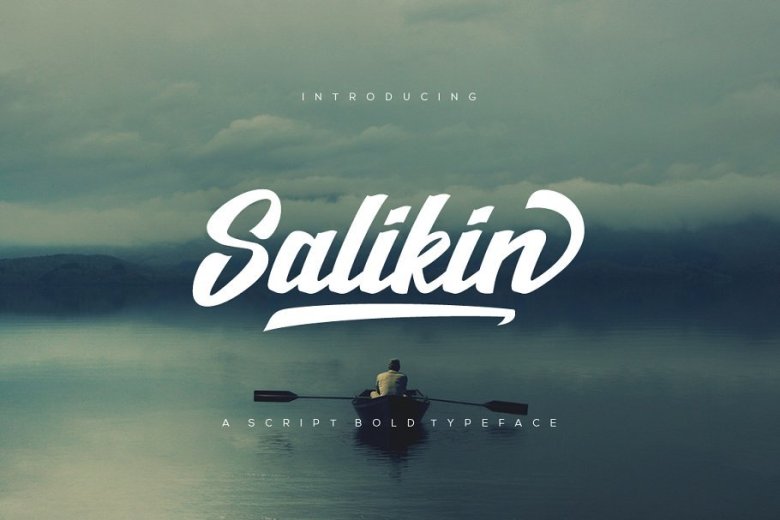
Salikin Bold Script Font
This is a beautiful script with a new lovely stylish, it is bold and brush style. If you are looking for such typeface then it is perfect for your work. Introducing Salikin font. Salikin is a script bold font. Salikin a very good for logotype, website header, fashion design, name tag, quotes, labels, t-shirts, packaging and any more.